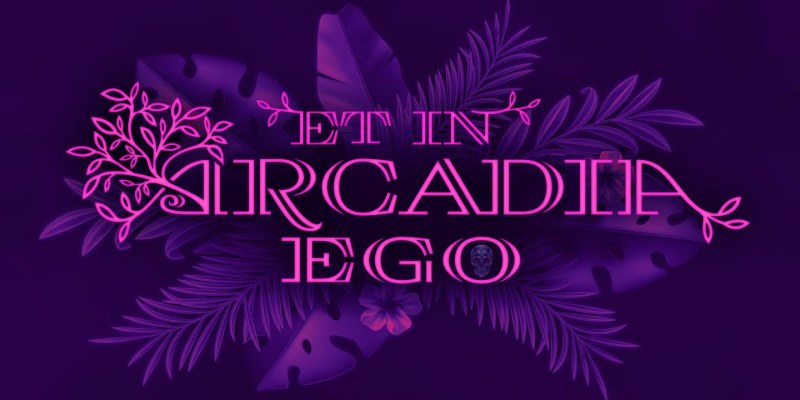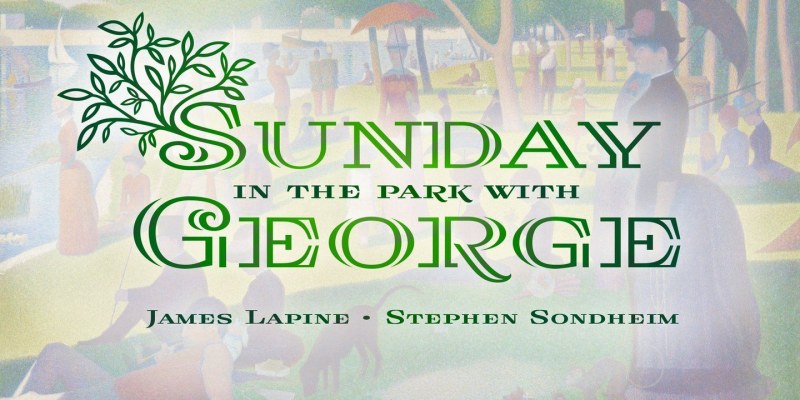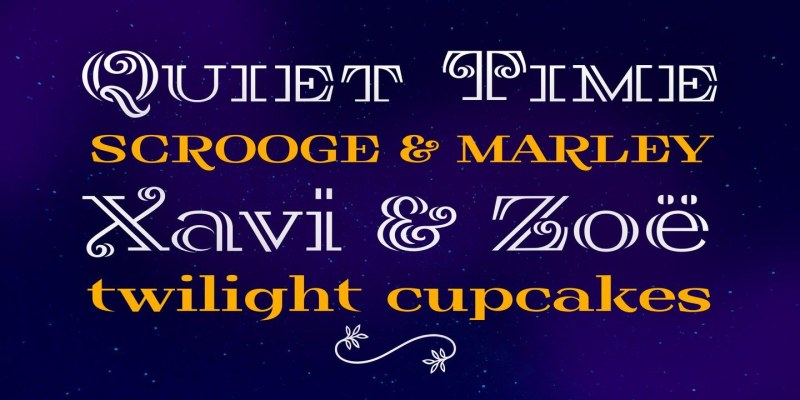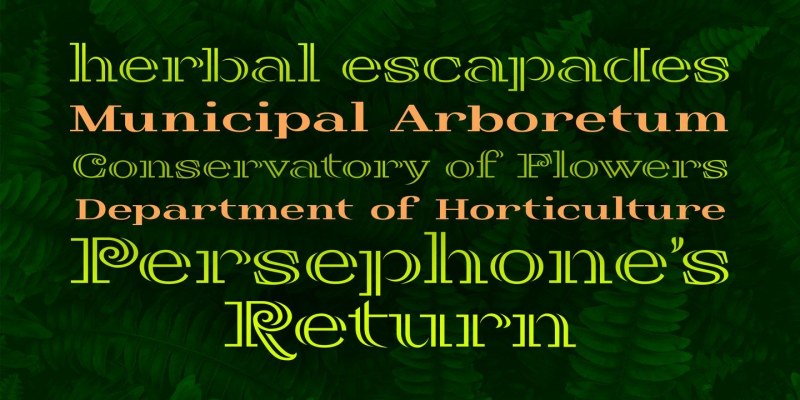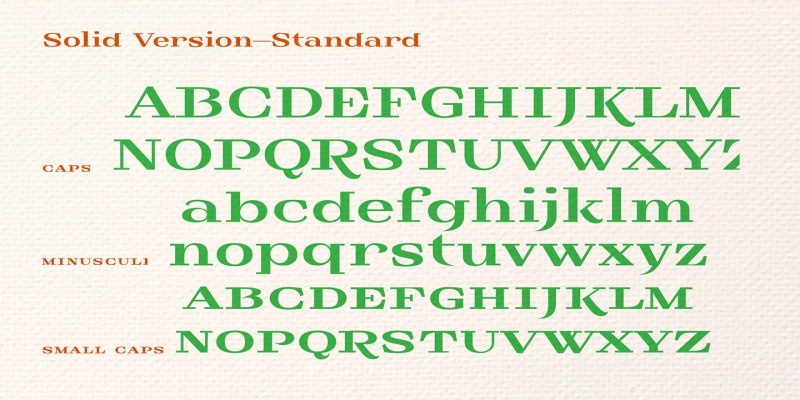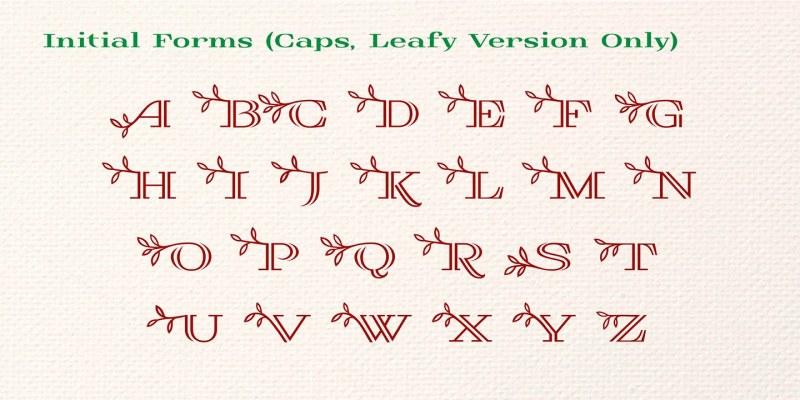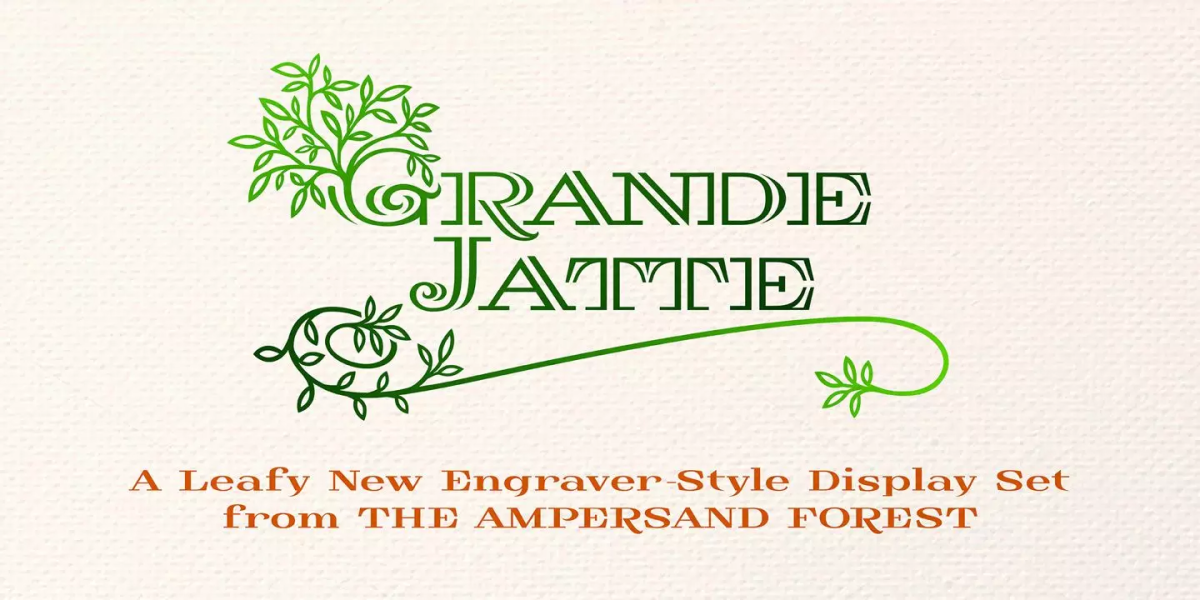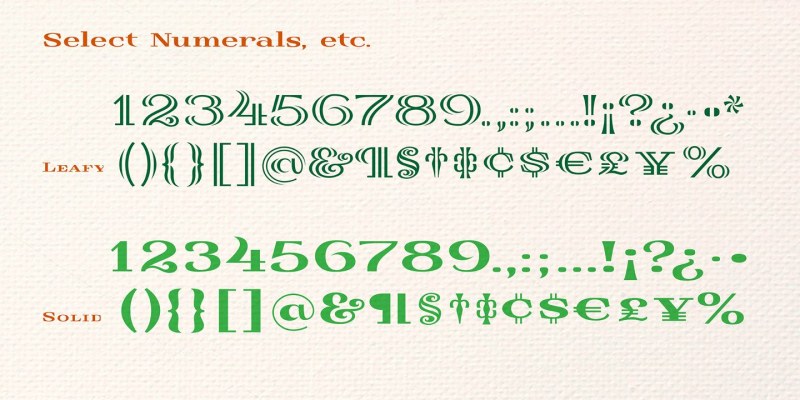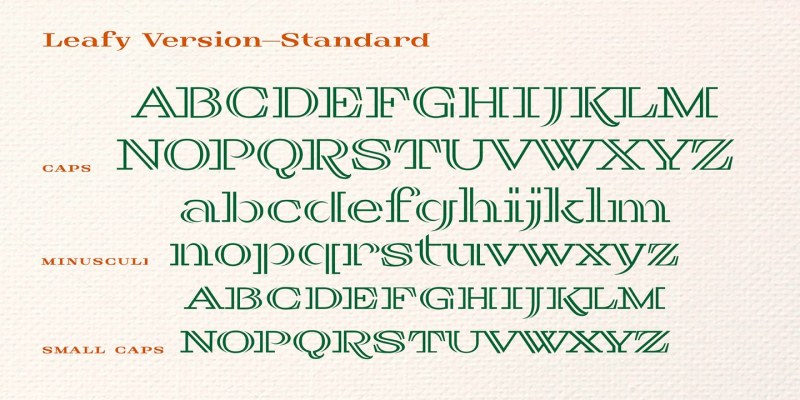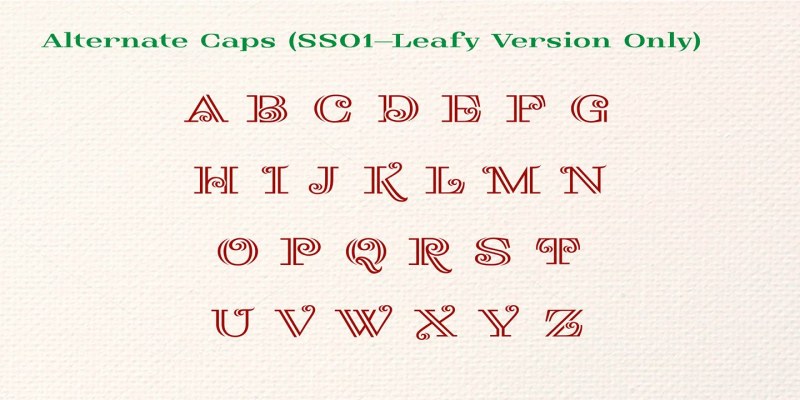
Grande Jatte Font Family
Grande Jatte is a display face with a distinctly horticultural bent. Based on classic Engravers types, its wide proportions and leafy appurtenances make it a great choic…
Grande Jatte is a display face with a distinctly horticultural bent. Based on classic Engravers types, its wide proportions and leafy appurtenances make it a great choice for anything that requires an ornate, elegant take on the natural world, from floral shops to herbalists to garden party invitations! Grande Jatte’s standard form is an elaborate, open, Leafy design with lots of decorative features for large display use, plus a more functional, Solid design for more legible, ancillary text! Grande Jatte’s features include elaborate initial capitals (under the Swash Caps feature), initial and final letterforms in the capitals, a second, more elaborate set of capitals (SS01 feature), and true small caps.
Where Grande Jatte Font Family works best
Grande Jatte Font Family is built for size: event posters, hero headlines and billboard-style layouts.
High contrast display type like Grande Jatte Font Family reads instantly in thumbnails and motion graphics.
What is Grande Jatte Font Family good for?